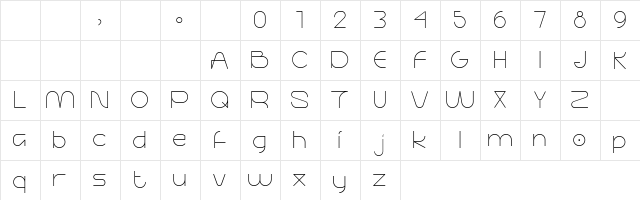
SIDIQIE Regular Free Version
Design Context for SIDIQIE Typeface
SIDIQIE offers clean, dependable letterforms without strong stylistic allegiance, making it a practical choice for designers who need flexibility.
Pro Tip: Pair SIDIQIE with a font of contrasting weight or personality to build a more expressive typographic hierarchy.